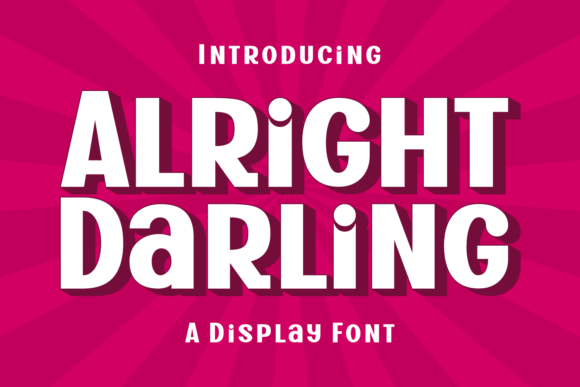
Discover the Charm of “Alright Darling” Font
I’ll never forget the moment I stumbled upon “Alright Darling” font while working on a branding project for a playful kids’ clothing line. My client wanted a font that was both bold and endearing, but I was struggling to find the perfect fit. That was until I laid eyes on “Alright Darling” – a standout display font that seduces with its charm and boldness. In this article, I’ll share my experience with this unique font, its features, and how to make the most of it in your designs.
A Personal Review of “Alright Darling”
• ✅ Unique design that’s perfect for evoking an impression on product packaging or adorning tote bags
• ✅ Endearing cuteness that makes a headline or title pop with joy
• ✅ Bold, joyful, and fancy qualities that make it perfect for crafting expressive quotes or enhancing videos
• ✅ Kid-friendly and cheerful vibe that’s ideal for school spirit projects or promotional cards
While “Alright Darling” is an amazing font, there are a few things to keep in mind:
• 🤔 Limited use of OpenType features, which might limit advanced typographic control
• ⚠️ May not be suitable for body text due to its bold and display nature
The Backstory Behind “Alright Darling”
The story behind “Alright Darling” is one of creativity and playfulness. Designed with the intention of evoking joy and charm, this font is perfect for designers who want to add a touch of whimsy to their work. Whether it’s for a branding project or a personal craft, “Alright Darling” is sure to bring a smile to your face.
Q: What type of projects is “Alright Darling” best suited for?
A: “Alright Darling” is perfect for branding projects, product packaging, tote bags, promotional cards, and advertisements that require a bold and playful touch.
Q: Can I use “Alright Darling” for body text?
A: While “Alright Darling” is a beautiful font, it’s primarily designed for display purposes. It may not be suitable for body text due to its bold nature.
Q: Is “Alright Darling” a kid-friendly font?
A: Absolutely! “Alright Darling” has a cheerful and playful vibe that makes it perfect for kids’ projects, school spirit designs, or educational materials.
Q: Can I use “Alright Darling” for multilingual projects?
A: Yes, “Alright Darling” is suitable for multilingual projects. However, it’s always best to check the font’s language support and compatibility before use.